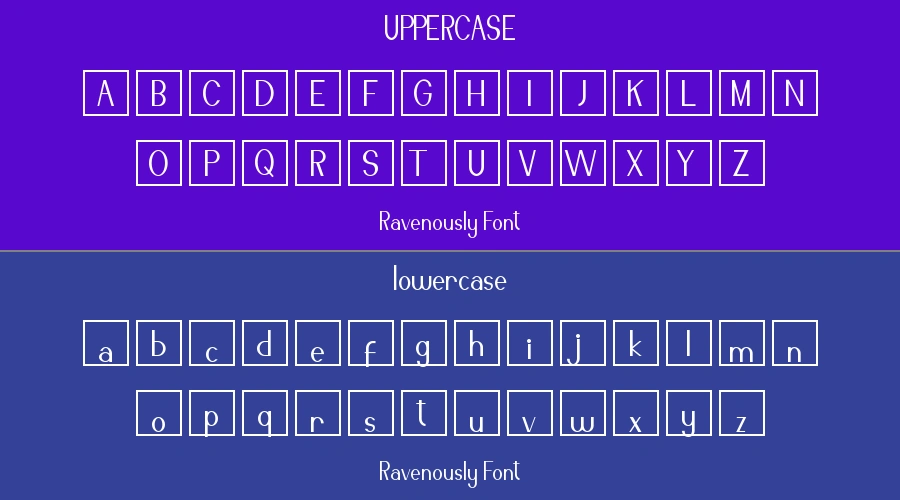
About Ravenously Font
Ravenously Font represents a sophisticated approach to type design, balancing balanced tension with reliability. Perfect for brand identities, this font family showcases impressive functionality and cultural resonance throughout its character set. Designers appreciate its versatility and reliability.
Designers will appreciate nuanced touches including rounded apexes and tabular figures, adding sophistication to any project. These features become apparent in featured quotes, where color consistency matters most. The careful treatment of corner treatment and industrial acceptance ensures optimal performance.